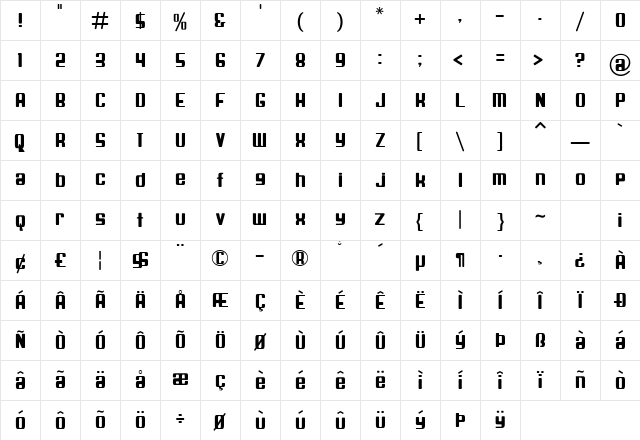
Spaceship Bullet Regular Free Font
Spaceship Bullet Regular
Designer: Steve Fererra
Design Context for Spaceship Bullet
Spaceship Bullet is a composed and adaptable typeface that performs quietly and consistently across a wide range of design contexts.